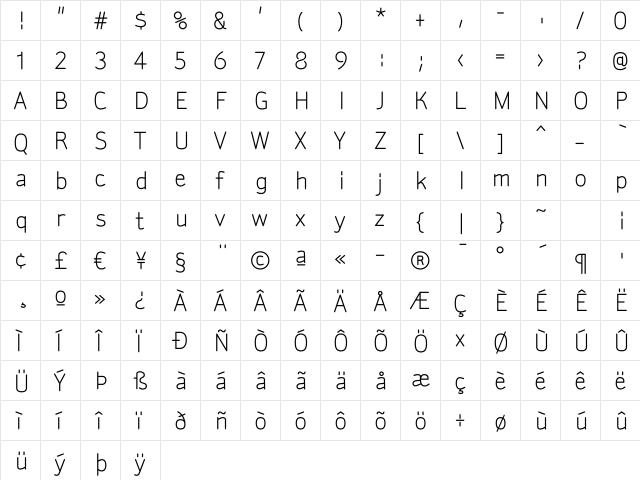
SylviaRegular Regular
Design Context for SylviaRegular Typeface
SylviaRegular takes a measured approach to typography — its balanced proportions and neutral character make it a reliable workhorse for both digital and print work.
Pro Tip: Use SylviaRegular in both headline and body roles to test its range before committing to a single application.